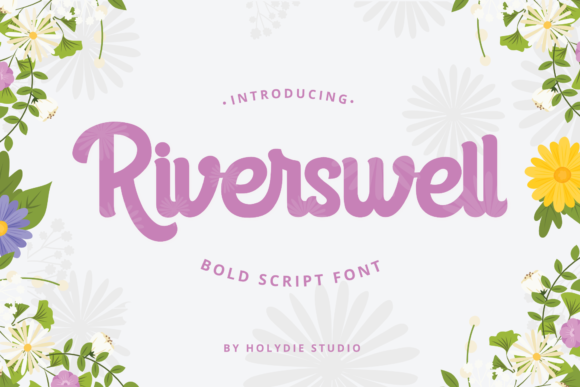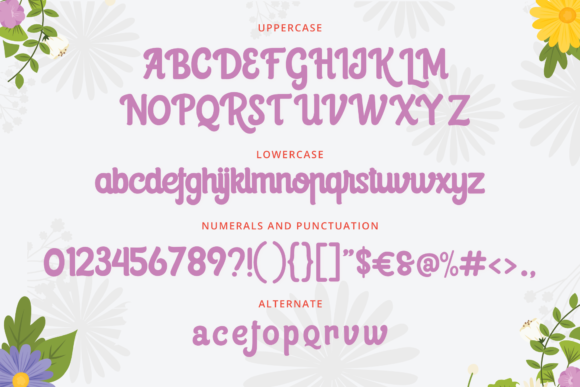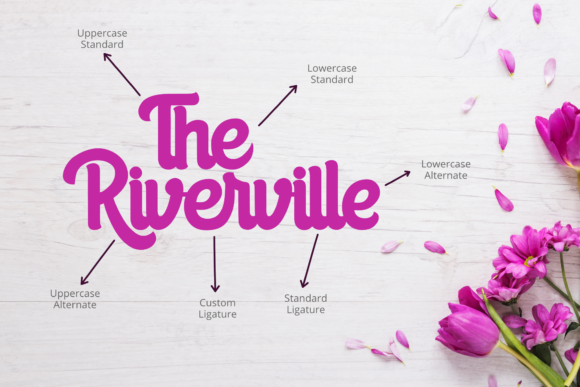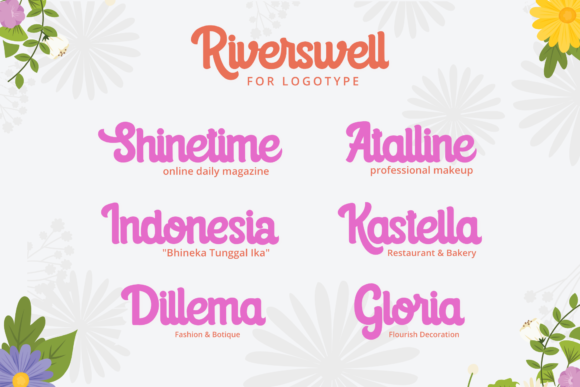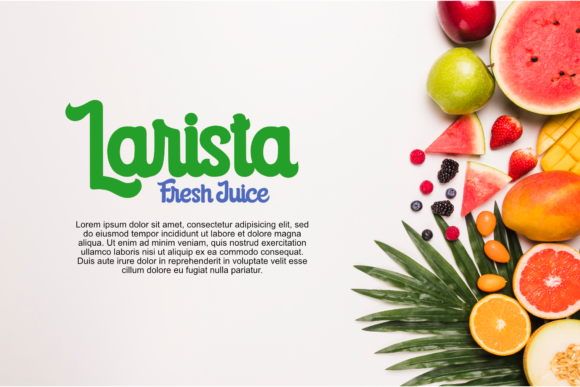
Riverswell Font
About Riverswell Font
The Riverswell is a fresh and simple script. Its bold letter have a great readability and can be used to give your design a striking touch.
It’s suitable for logos, branding, magazines, apparel, posters, advertising, and more.